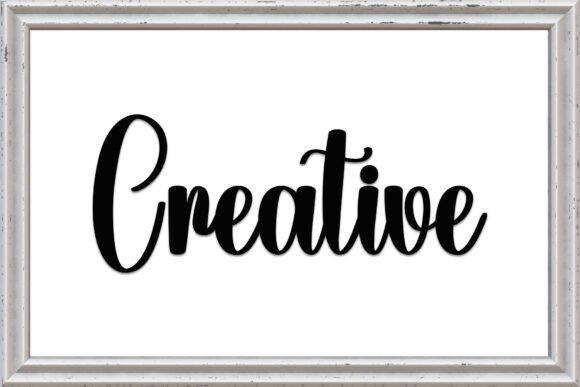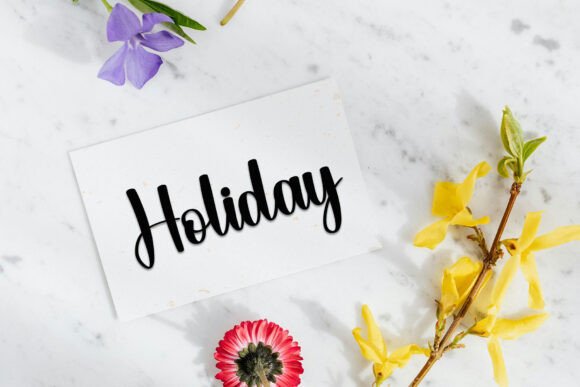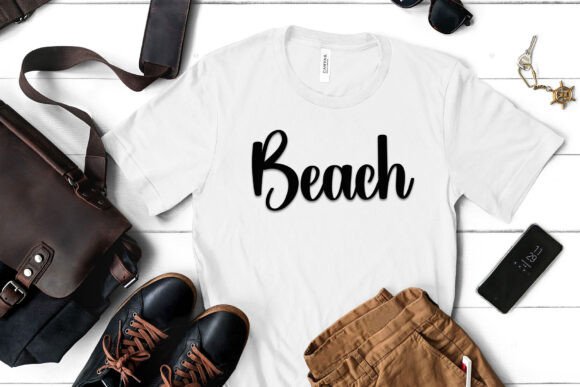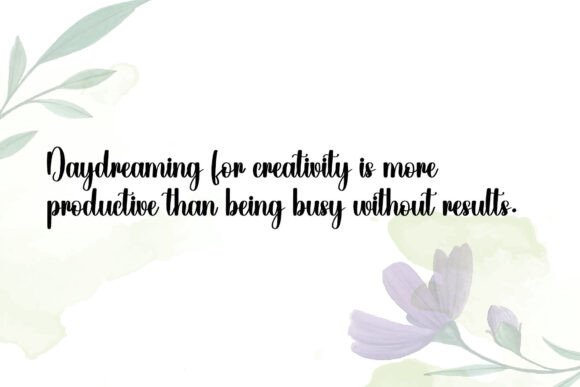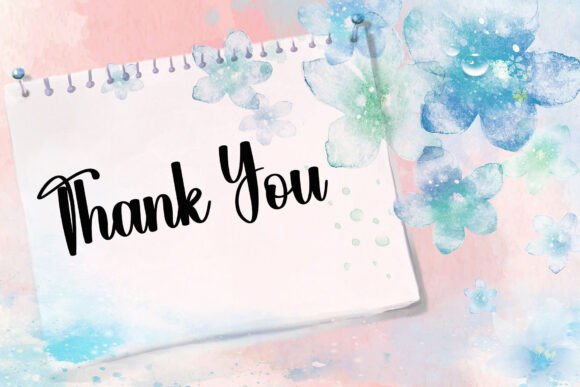
The Perfect Beachy Vibe for Your Designs
Have you ever sat on a beach, surrounded by the sound of waves and the warmth of the sun, and felt inspired to create something beautiful? That’s exactly what happened to us when we stumbled upon the Boho Beach Font. Its elegant, handwritten style is the epitome of beachy chic, and we couldn’t wait to share it with you.
Boho Beach Font is more than just a trendy typeface – it’s a way to add a touch of sophistication and whimsy to your designs. Whether you’re a graphic designer, a blogger, or a social media influencer, this font is sure to elevate your brand and give it a unique, bohemian flair. And the best part? It’s incredibly versatile, making it perfect for a wide range of projects, from wedding invitations to travel brochures.
Boho Beach Font Key Features
- Unique Characteristics: The Boho Beach Font features a unique blend of bohemian and beach-inspired elements, including hand-drawn illustrations and intricate details.
- Script and Ligatures: The font includes a range of script and ligature options, allowing for creative and dynamic typography.
Boho Beach Font Review
I was excited to dive into the Boho Beach Font and see what it had to offer. As a designer, I appreciate unique and creative fonts that can add a touch of personality to a project. Here’s my honest review:
- The font has a clear, beachy vibe that’s perfect for summer-themed projects or designs that need a laid-back feel.
- The letterforms are well-designed, with a nice balance of curves and lines that make them easy to read.
- The font includes a range of weights and styles, which gives designers a lot of flexibility when it comes to choosing the right look for their project.
- The font may not be suitable for projects that require a more formal or professional tone, as it can come across as a bit too casual.
- The font doesn’t include any special characters or ligatures, which may be a limitation for designers who need to use these features.
Overall, I think the Boho Beach Font is a great choice for designers who are looking for a unique and creative font to add some personality to their projects. While it may have some limitations, it’s a solid choice for the right kind of project.
Boho Beach Font is perfect for creating a relaxed, beachy vibe in your designs. Use it for:
Beach-themed posters and flyers
Summer-themed social media graphics
Restaurant menus and branding
Alternative Fonts to Boho Beach Font
Great Vibes Font is a modern, elegant script font that is perfect for adding a touch of sophistication to your designs. It is ideal for use in headings, titles, and quotes where a flowing, cursive style is desired. Great Vibes Font has a similar beachy vibe to Boho Beach Font, but with a more refined and polished look.
Comparison to Boho Beach Font: Great Vibes Font has a more refined and elegant look compared to Boho Beach Font’s more playful and casual feel.
Pacifico Font is a beautiful, handwritten font that is perfect for adding a touch of warmth and personality to your designs. It is ideal for use in headings, titles, and body text where a friendly and approachable style is desired. Pacifico Font has a similar laid-back and beachy vibe to Boho Beach Font, but with a more rustic and weathered look.